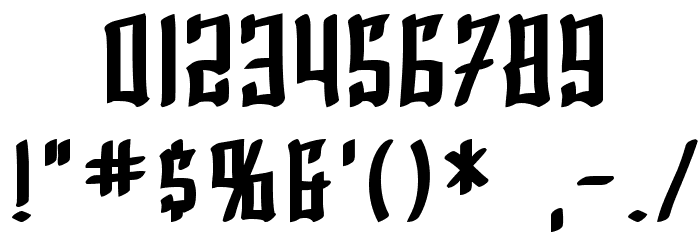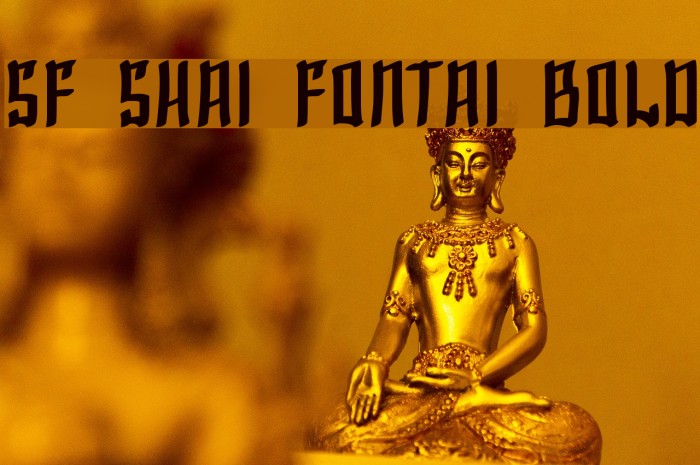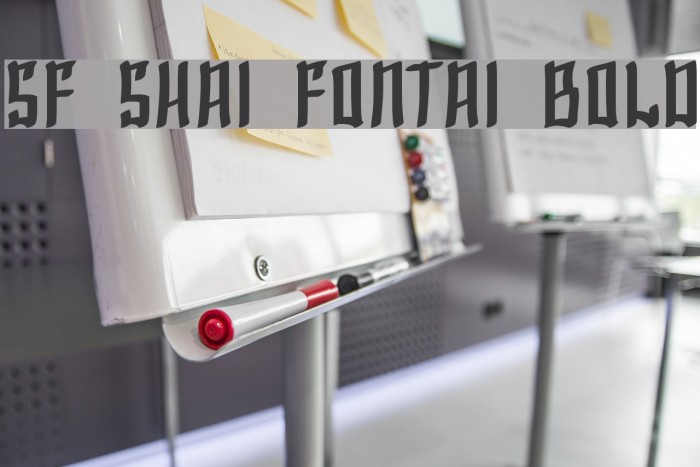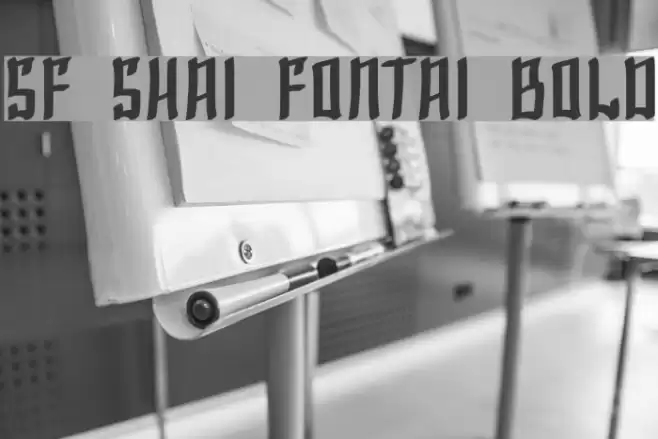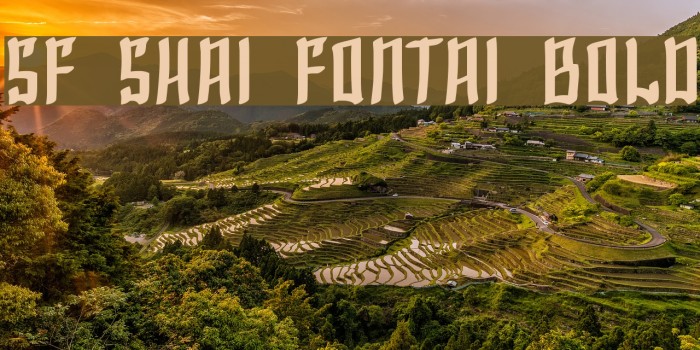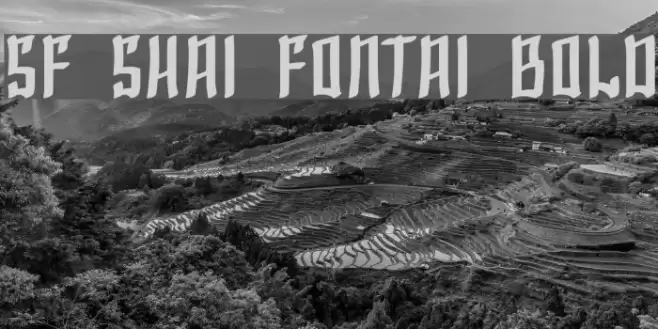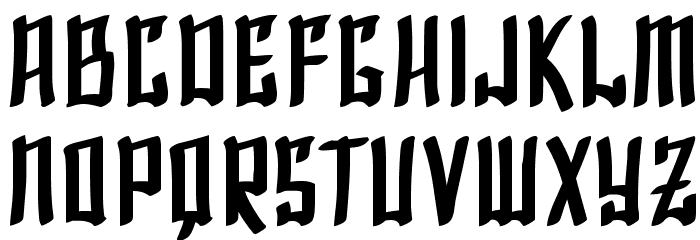
SF Shai Fontai Bold Font
| Proiecte propuse | Ideal for fantasy book covers, movie posters, video game titles, and branding that requires a bold, historical touch. |